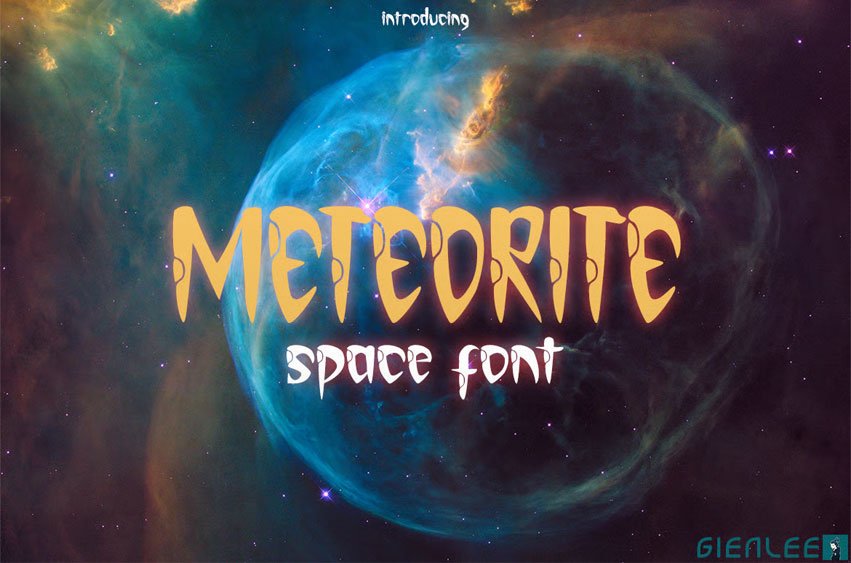
Meteorite Space Font is Space Font. Commonly used for space traveler. It looks like an unknown object that reach the surface of a planet, causes an explosion, and create impact crater.